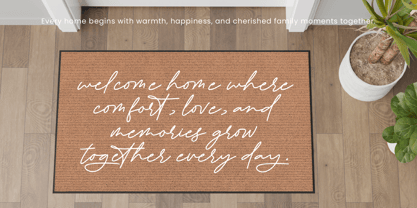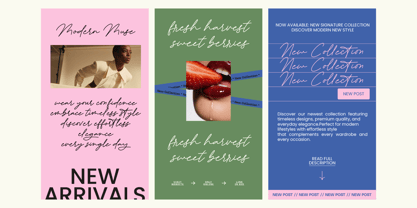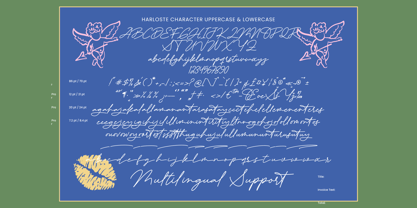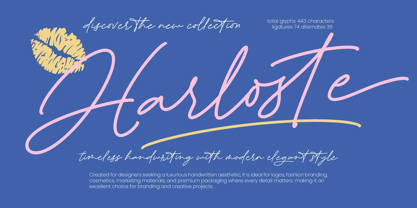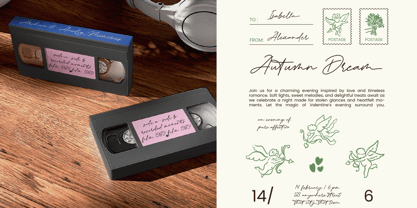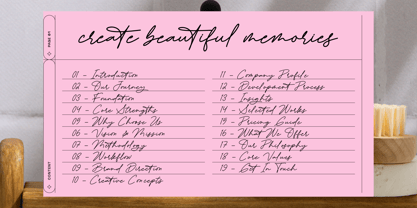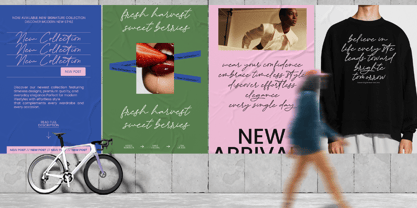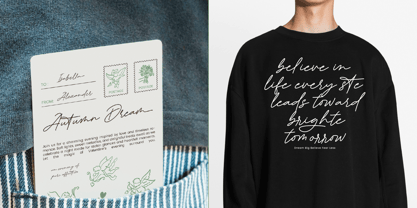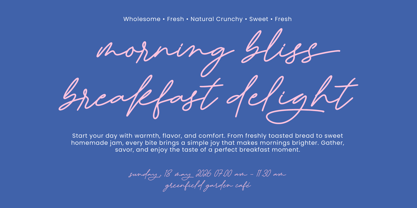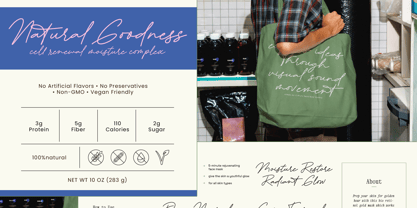
Harloste
La familia tipográfica Harloste fue diseñada por Heru Utama Putra y publicada por Letterena Studios. Harloste contiene 2 estilos y opciones de paquete familiar. Más información sobre esta familia
Harloste - Monoline Signature Font
Elevate your creative vision with a touch of modern sophistication and effortless charm. Harloste - Monoline Signature Font is a masterfully crafted monoline script that captures the essence of authentic handwriting with a refined aesthetic. Its smooth, consistent strokes and elegant flow create a natural rhythm, ensuring that every word feels personalized and high-end. This font is the ultimate solution for designers seeking a minimalist yet impactful signature style that resonates with contemporary trends.